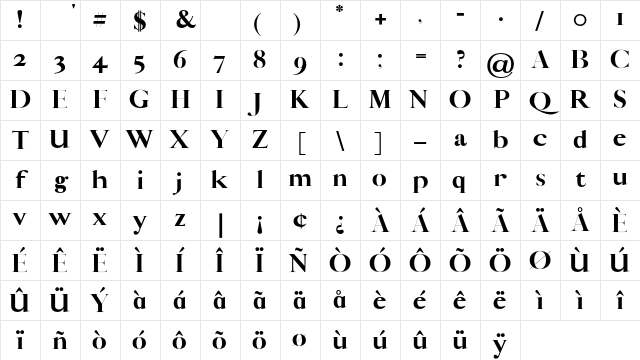
Sharis Black Bold Free Font
Sharis Black Bold
Foundry: Creativetacos
Designer: Mohammad Ahsan
Design Context for Sharis Black
Sharis Black is a composed and adaptable typeface that performs quietly and consistently across a wide range of design contexts. Its bold stroke weight gives it real presence on the page.